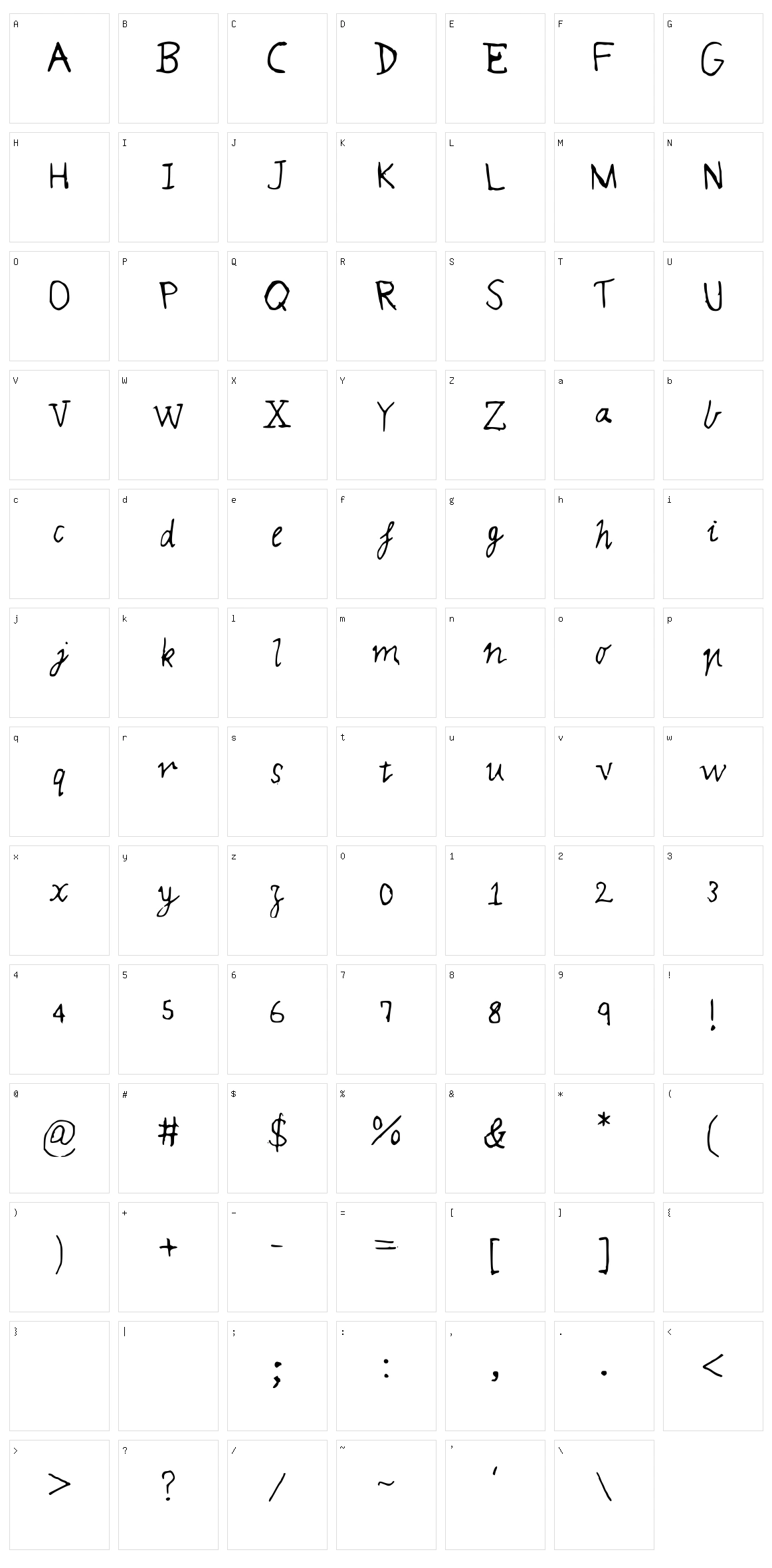
The free font MQS Magic is carefully designed by Issy S, showcasing a thoughtful balance of creativity and usability and falls under the Script font style. When you download the ZIP file, it contains only 14.28 KB of font files, making it lightweight and quick to download. Please review the license details below to understand permitted usage and distribution rights. If license information is not available, we recommend using this font for personal projects only or contacting the author directly for commercial usage permissions.